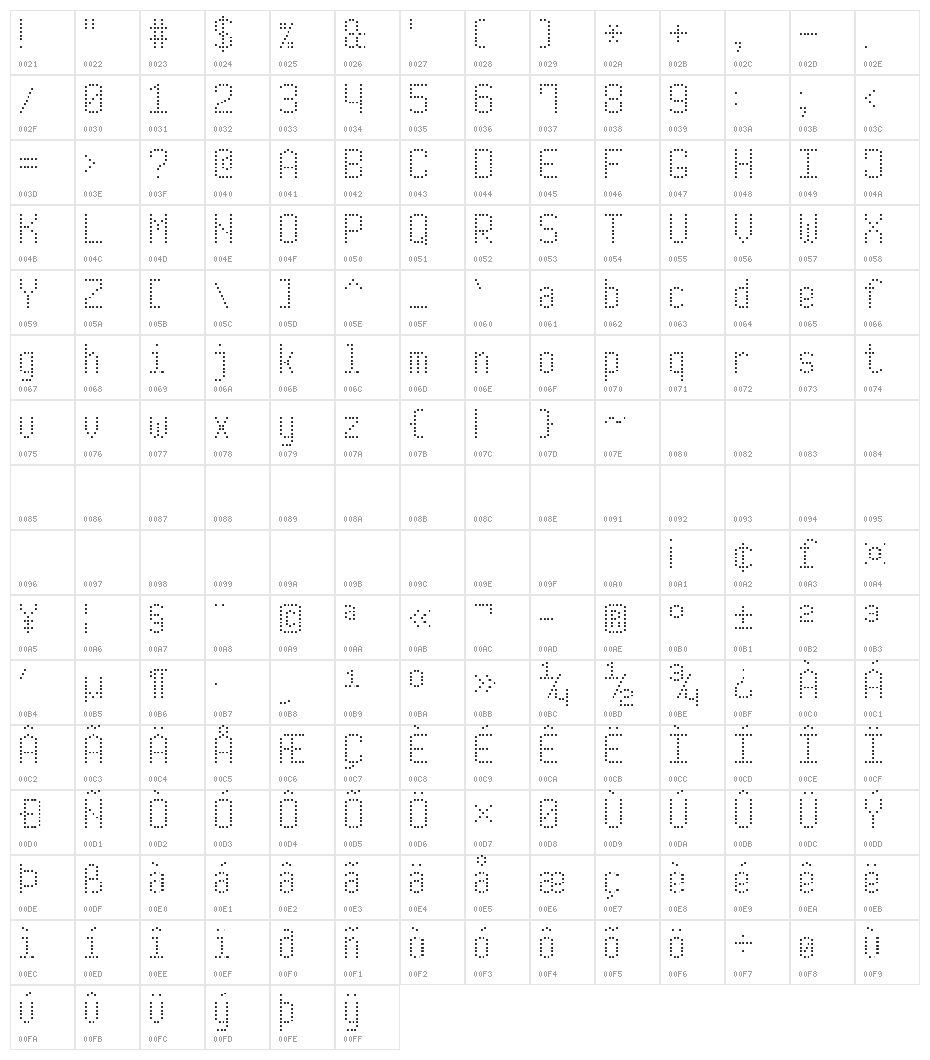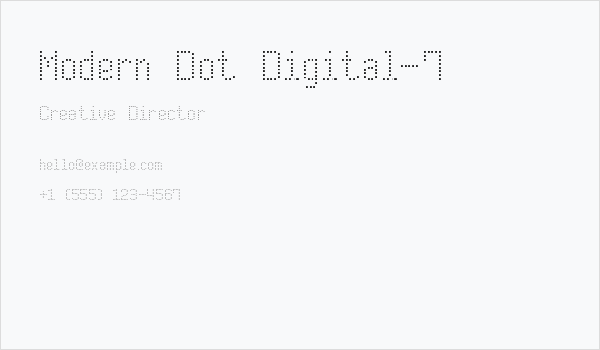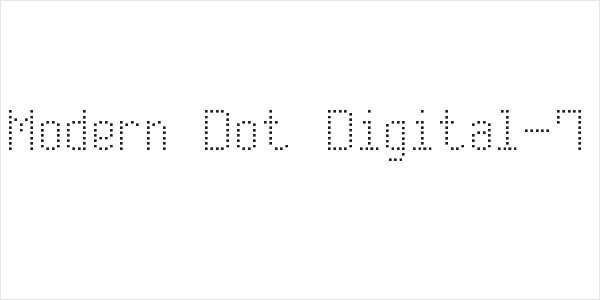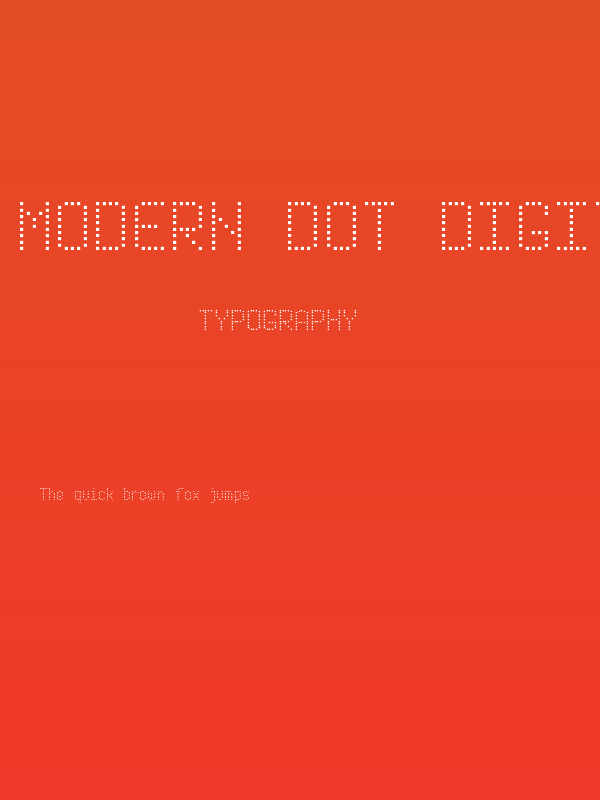
Modern Dot Digital-7 Font
Modern Dot Digital-7 Description
This font features a unique dot matrix style, reminiscent of digital displays and retro technology. Each character is composed of evenly spaced dots, creating a pixelated effect that is both modern and nostalgic. The uppercase and lowercase letters, as well as numbers and special characters, maintain a consistent dot pattern, ensuring readability while adding a distinct visual texture. The uniformity of the dots provides a clean and structured appearance, making it suitable for digital-themed projects or designs that require a futuristic touch.
| Proposed Projects | Ideal for digital displays, tech-themed posters, retro video game graphics, and futuristic branding. |